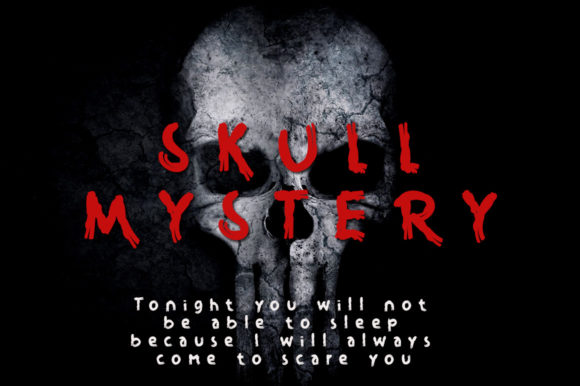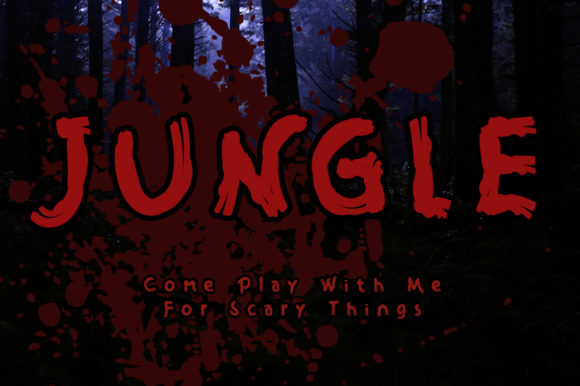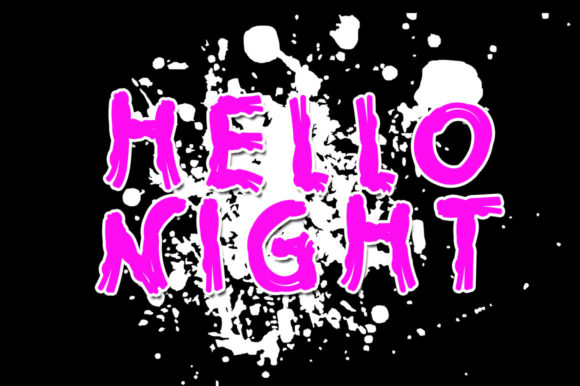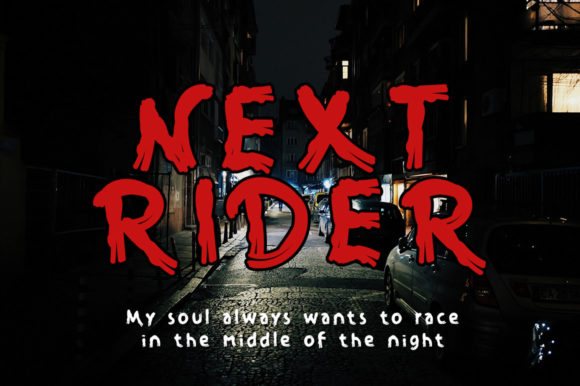
Introduction to Ghost Death Font
Ghost Death is a splendid display font that looks fun and scary at the same time.
Use it for your most creative Halloween projects, and you’ll love the outcome .
Key Features of Ghost Death Font